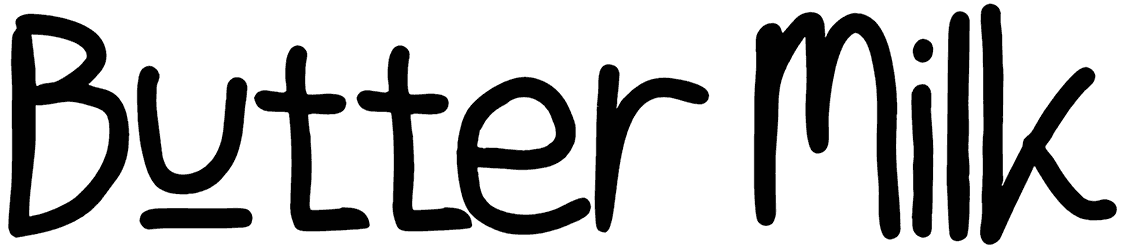
Butter Milk Font
Butter Milk is a lovely script font that gives you a miraculous advantage in different fields such as creating headings, product labels, stickers, logos, or social media posts.
This handwritten font comes with rounded characters and reinforces a sense of vivacity, dynamism, personalization, or professionalism in your visual content. Just in case you are looking for another font in the same category, don’t hesitate to visit the RB font collection.